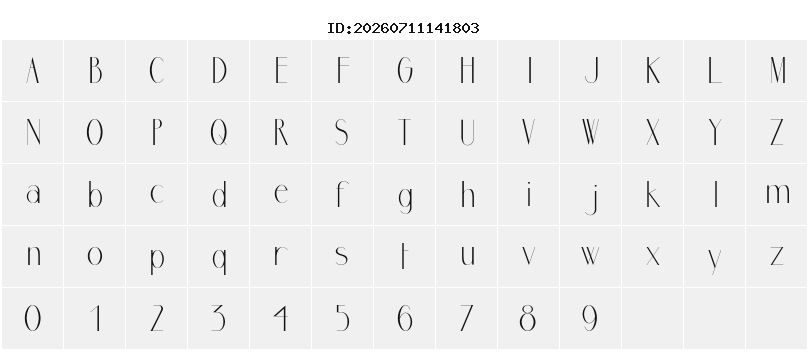
• Font Name: Marbre
• Font Style: Sans
• Full Font Name: Marbre Sans
• PostScript Name: Marbre-Sans
About Marbre.otf
Marbre.otf is a modern, elegant sans-serif font designed for ultimate readability and visual harmony. Perfect for branding, headlines, web design, and print materials.